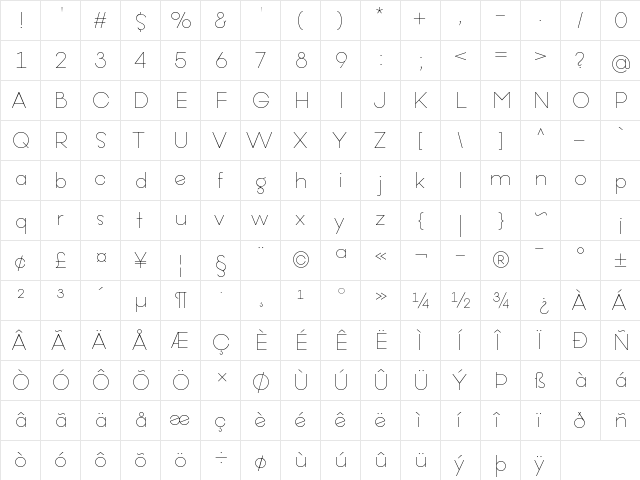
Offerings Regular
| Foundry | 7NTypes |
| Designer | Situjuh Nazara |
Design Context for Offerings Typeface
Offerings takes a measured approach to typography — its balanced proportions and neutral character make it a reliable workhorse for both digital and print work.